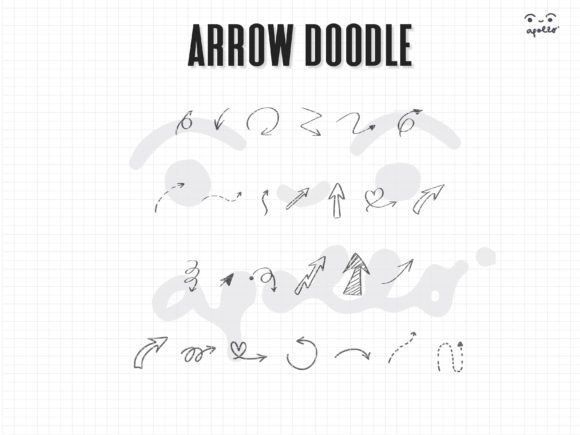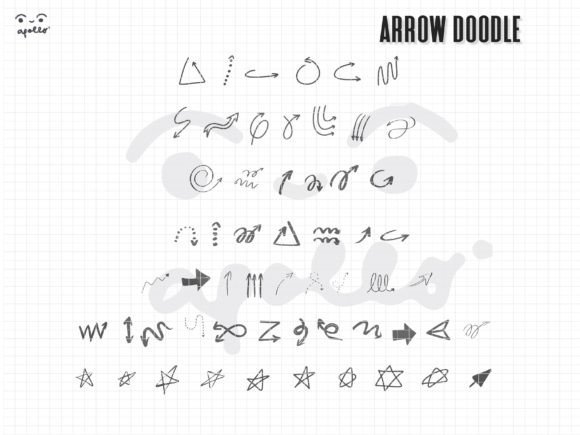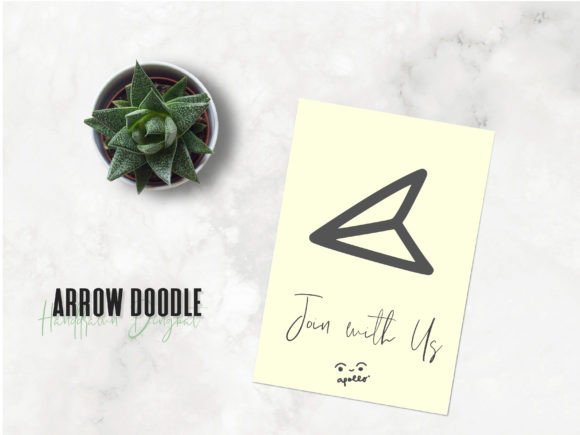
Introducing Arrow Doodle Font: The Ultimate Symbol of Direction and Whimsy
Are you a designer, crafter, or artist looking for a unique and versatile font to add a touch of personality to your projects? Look no further than Arrow Doodle Font, a delightful hand-drawn dingbats font that’s perfect for a wide range of creative applications. In this article, we’ll explore the ins and outs of Arrow Doodle Font, and why it’s becoming a favorite among designers and crafters alike.
What is Arrow Doodle Font?
Arrow Doodle Font is a symbol of direction and adorable hand-drawn dingbats font that’s designed to bring a smile to your face. Its simple, yet charming design makes it an excellent choice for adding a touch of whimsy to your projects. With its delightful doodle-style illustrations, this font is perfect for creating visually appealing and engaging designs that are sure to capture attention.
Key Features of Arrow Doodle Font
- Hand-drawn design: Each character in Arrow Doodle Font is carefully hand-drawn to give it a unique, organic feel that’s perfect for artlike tattoo elements and other creative projects.
- Simple and enjoyable to use: The font’s simple design makes it easy to use and navigate, even for those with limited design experience.
- Versatile: Arrow Doodle Font is perfect for a wide range of applications, including invitation embellishments, wall art, beverage logos, seamless patterns, and more.
- Symbol of direction: The font’s arrow designs make it a natural fit for projects that require a sense of direction or movement.
Creative Applications for Arrow Doodle Font
So, what can you create with Arrow Doodle Font? The possibilities are endless! Here are a few ideas to get you started:
- Invitation embellishments: Add a touch of personality to your invitations with Arrow Doodle Font’s adorable arrow designs.
- Wall art: Create stunning wall art pieces using Arrow Doodle Font’s unique doodle-style illustrations.
- Beverage logos: Give your beverage brand a fun and playful edge with Arrow Doodle Font’s charming arrow designs.
- Seamless patterns: Use Arrow Doodle Font to create seamless patterns that are perfect for textiles, wallpaper, and more.
- Artlike tattoo elements: The font’s simple design and adorable illustrations make it a natural fit for artlike tattoo elements.
Why Choose Arrow Doodle Font?
So, why should you choose Arrow Doodle Font for your next project? Here are just a few reasons:
- Unique and eye-catching: Arrow Doodle Font’s hand-drawn design and adorable illustrations make it a standout among other fonts.
- Easy to use: The font’s simple design makes it easy to navigate and use, even for those with limited design experience.
- Versatile: Arrow Doodle Font is perfect for a wide range of applications, from invitations to wall art.
- Fun and playful: The font’s whimsical design makes it perfect for projects that require a touch of personality and whimsy.
In conclusion, Arrow Doodle Font is a unique and versatile font that’s perfect for designers, crafters, and artists looking to add a touch of personality to their projects. With its hand-drawn design, simple navigation, and adorable illustrations, this font is sure to become a favorite among creatives. Whether you’re creating invitation embellishments, wall art, or seamless patterns, Arrow Doodle Font is the perfect choice. So why wait? Download Arrow Doodle Font today and start creating your own unique and eye-catching designs!